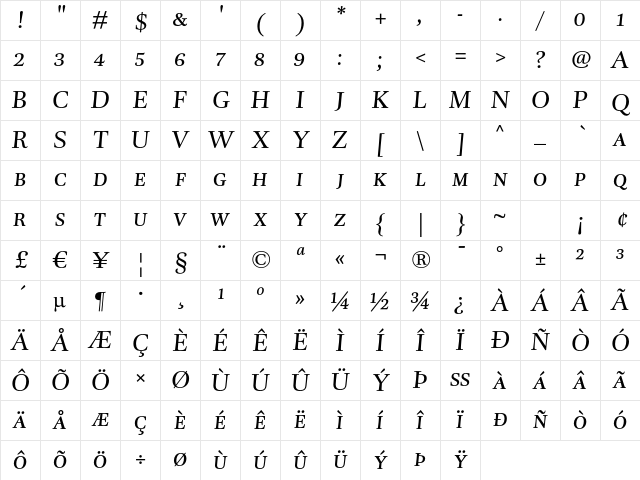
DTLUnicoT-Caps Italic
Foundry: Dutch Type Library
Designer: Michael Harvey
Design Context for DTLUnicoT-Caps
DTLUnicoT-Caps is a composed and adaptable typeface that performs quietly and consistently across a wide range of design contexts. The slanted form adds forward momentum and visual energy.